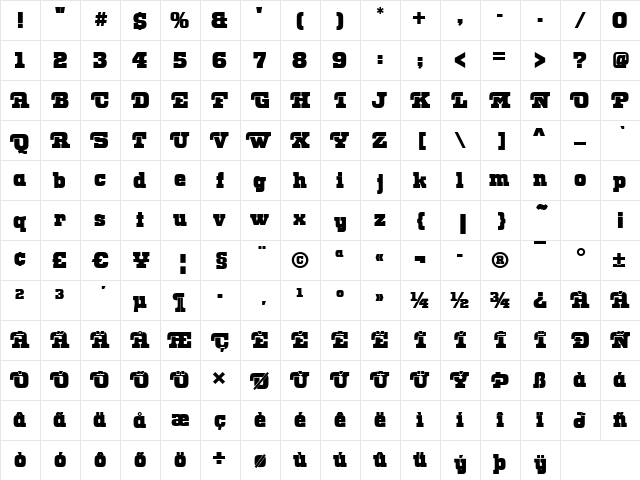
Otis-Poster Regular
Design Context for Otis-Poster Typeface
Otis-Poster offers clean, dependable letterforms without strong stylistic allegiance, making it a practical choice for designers who need flexibility.